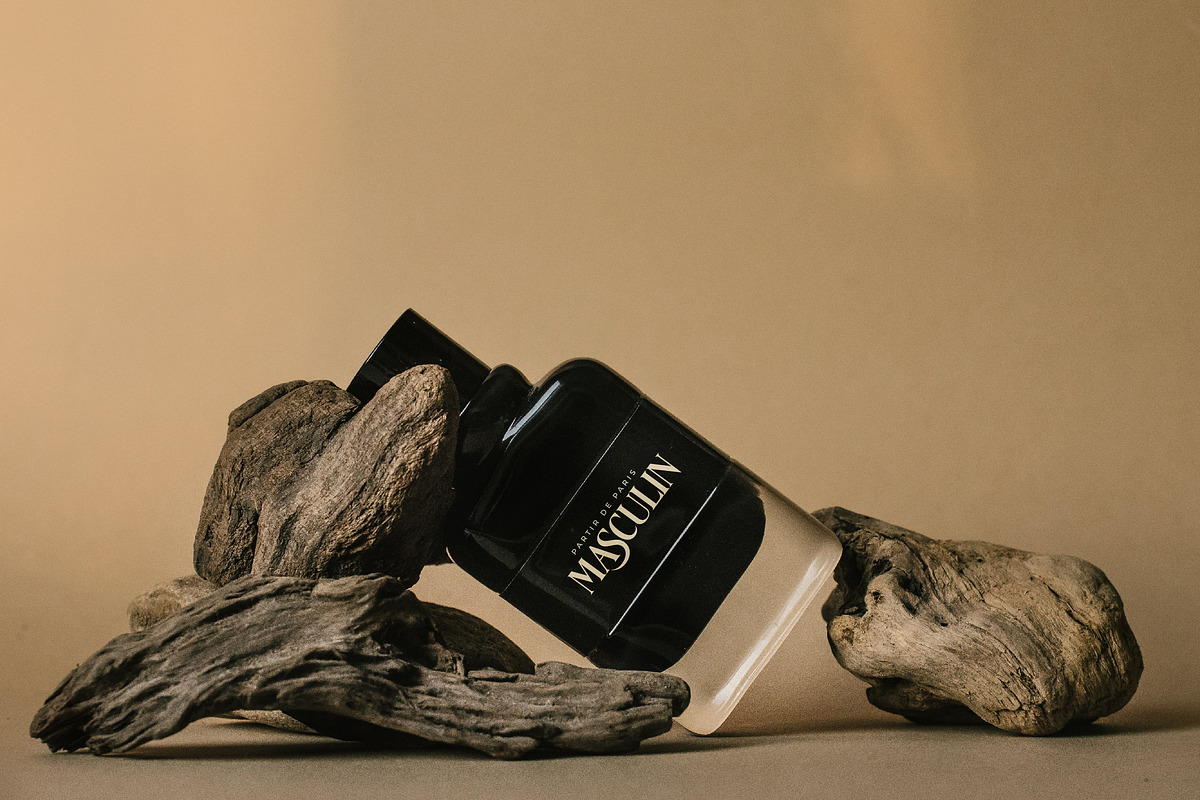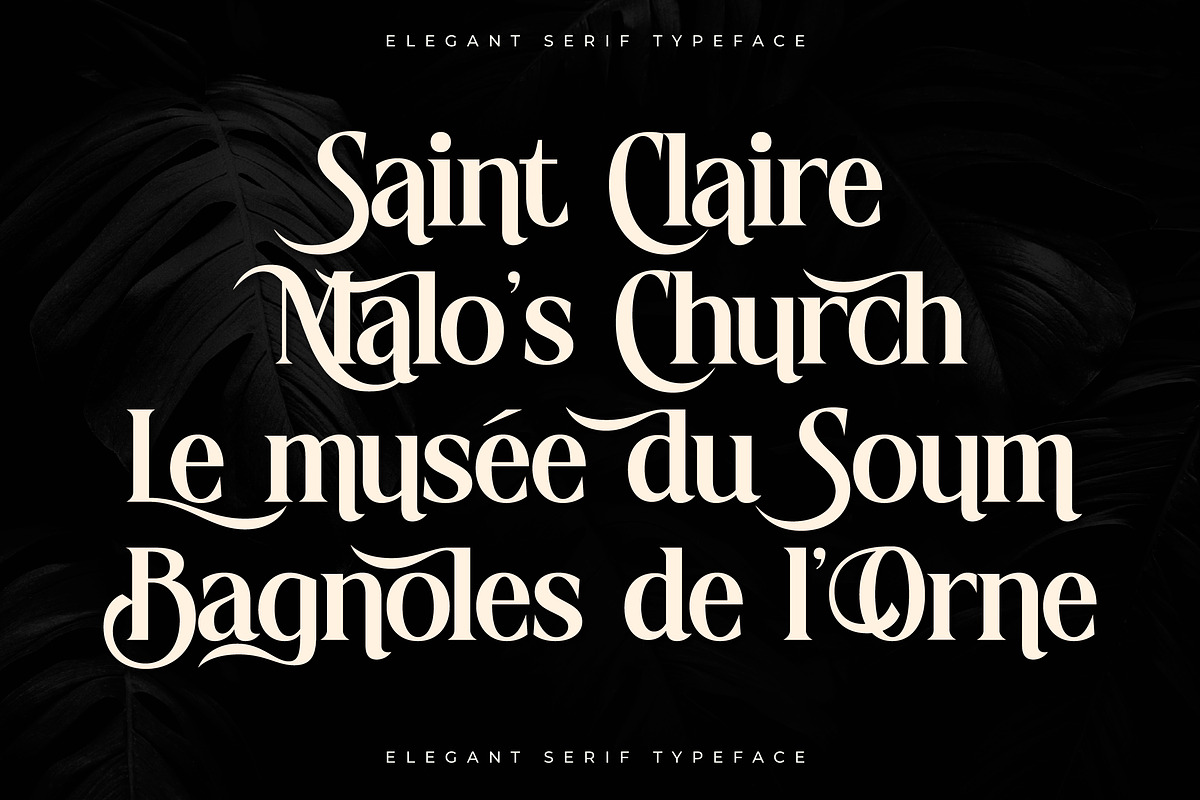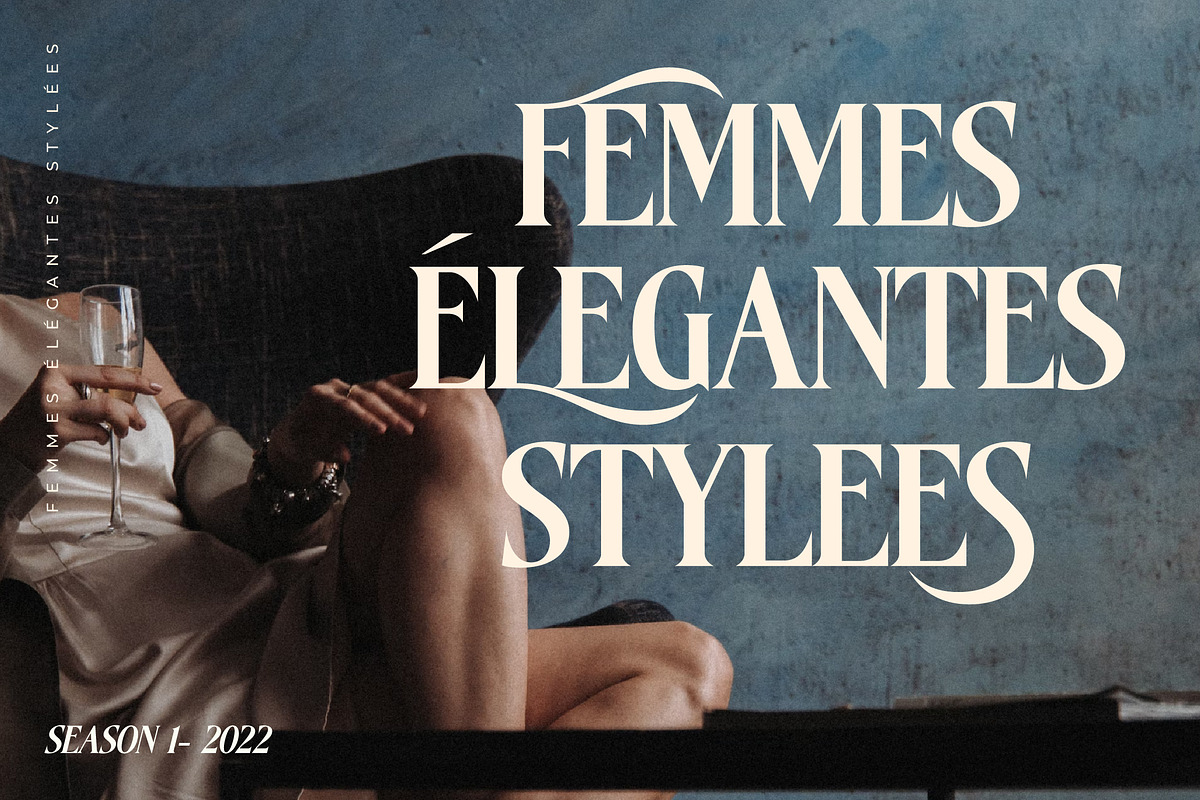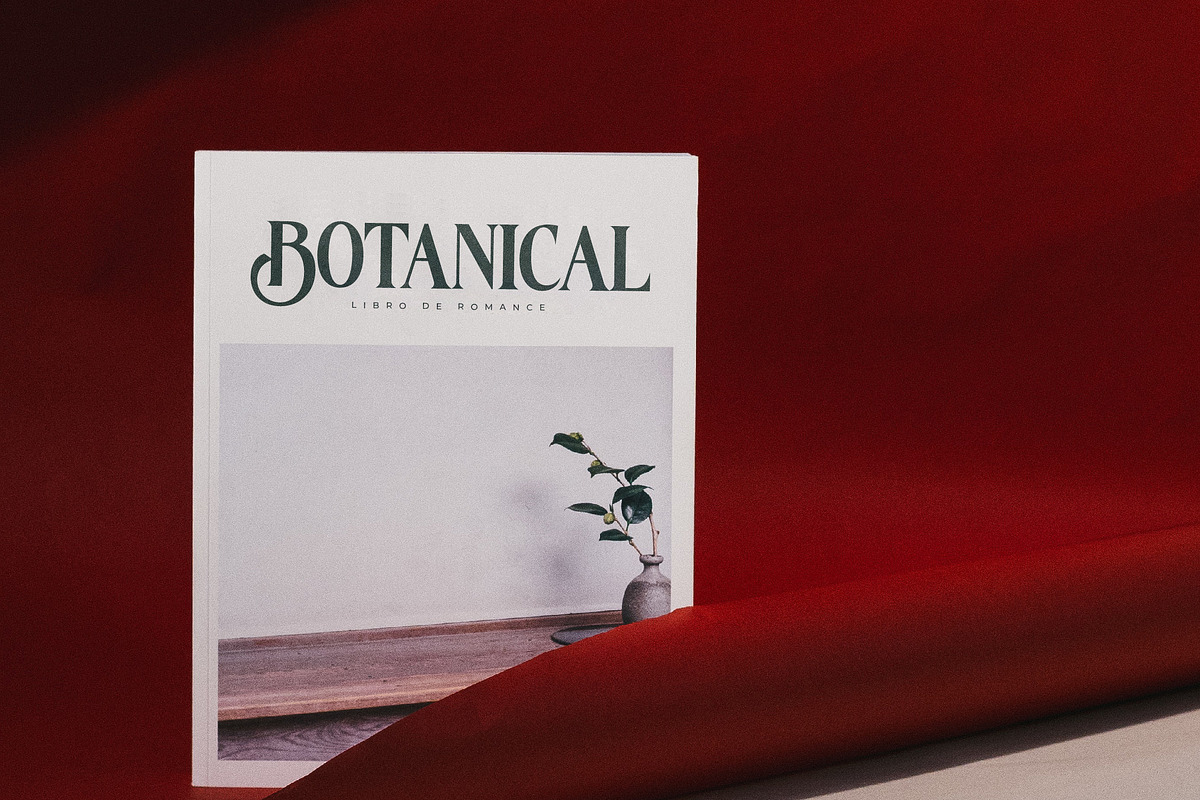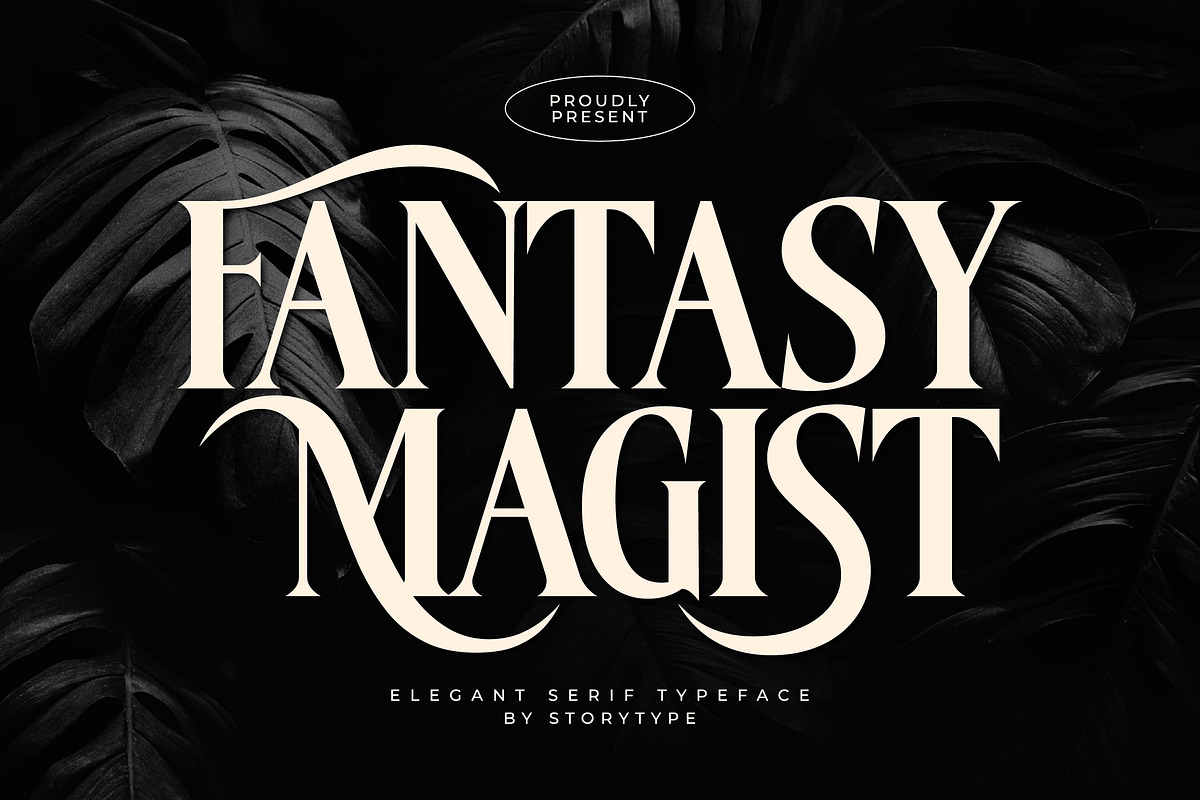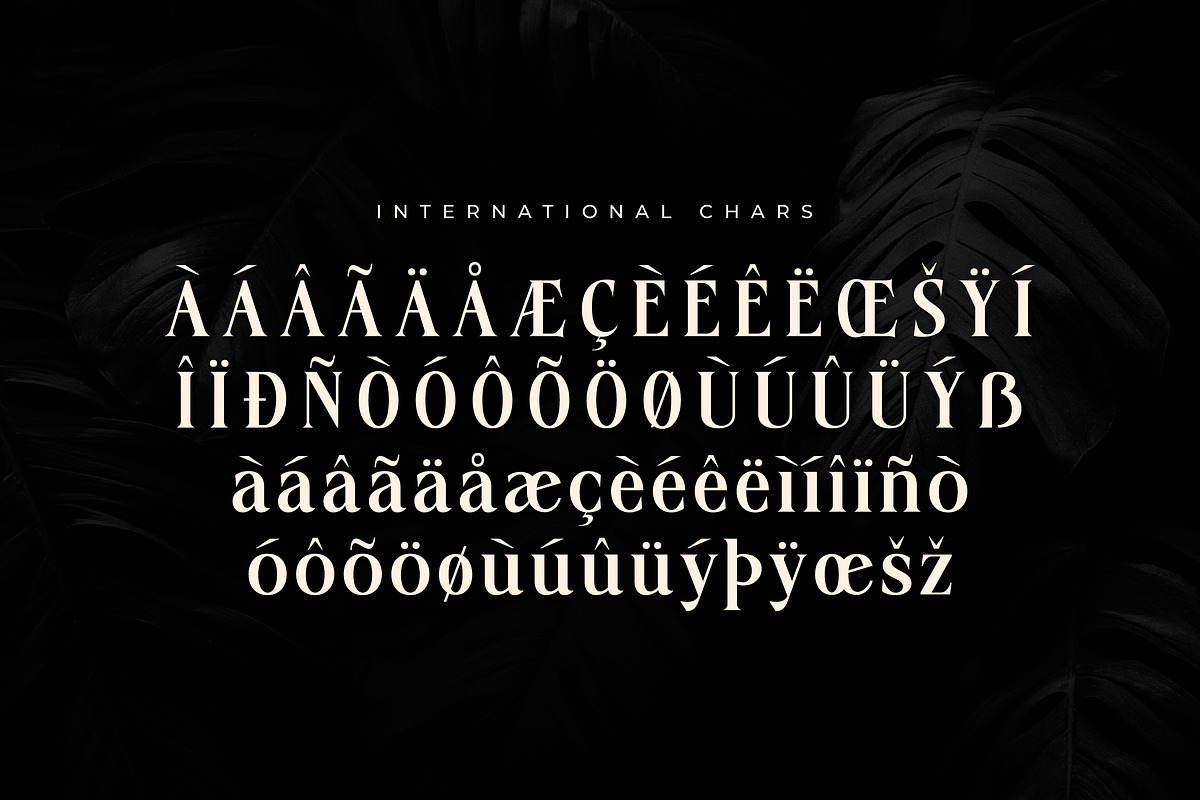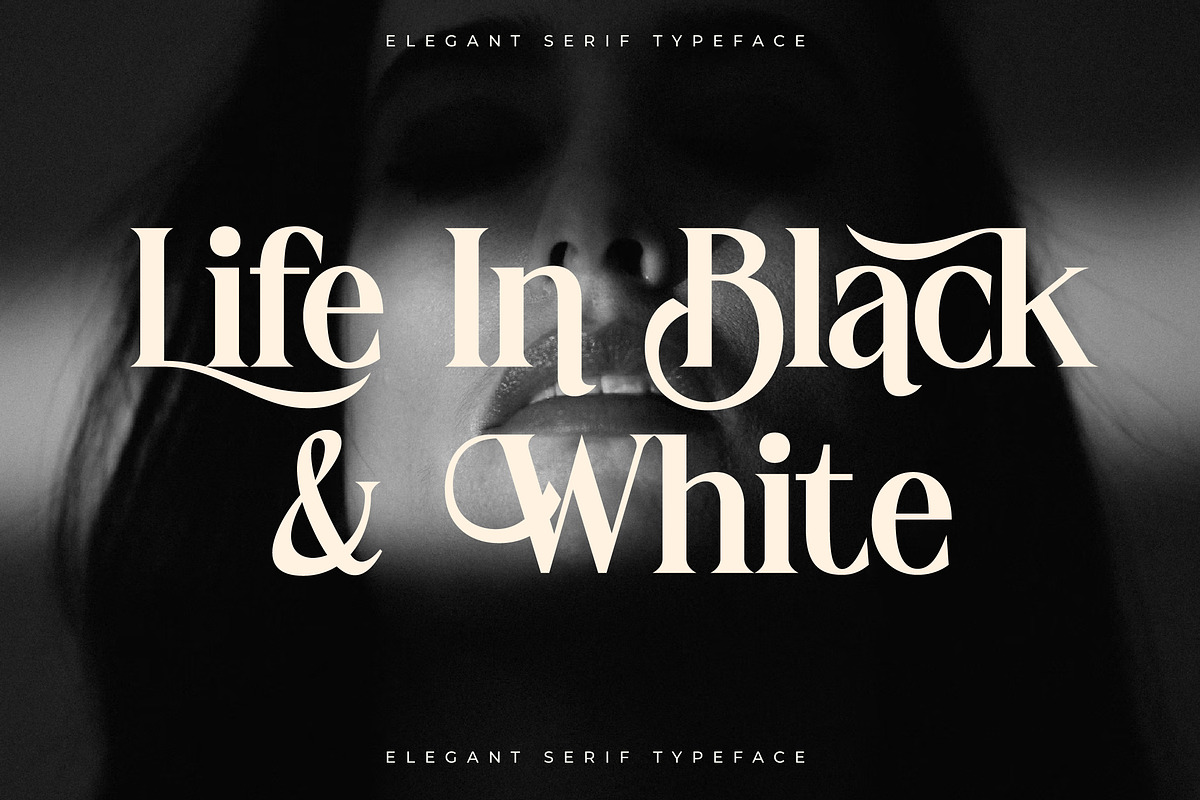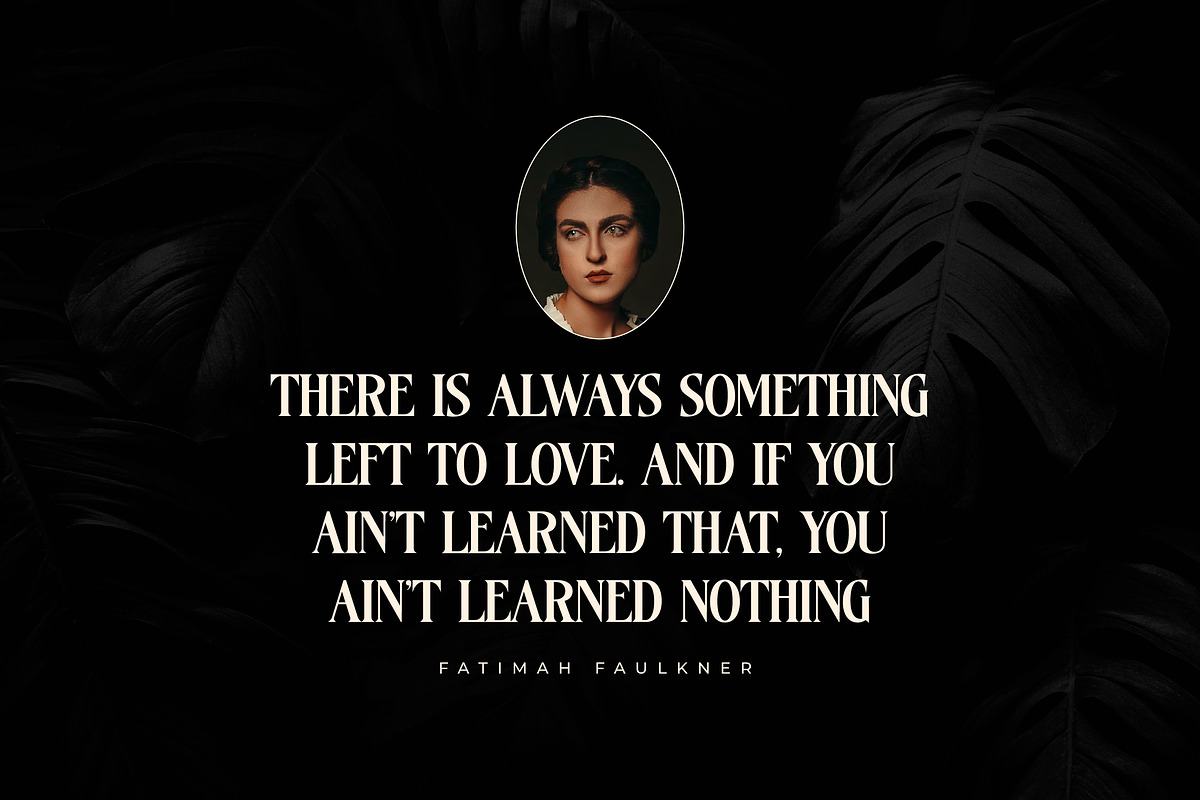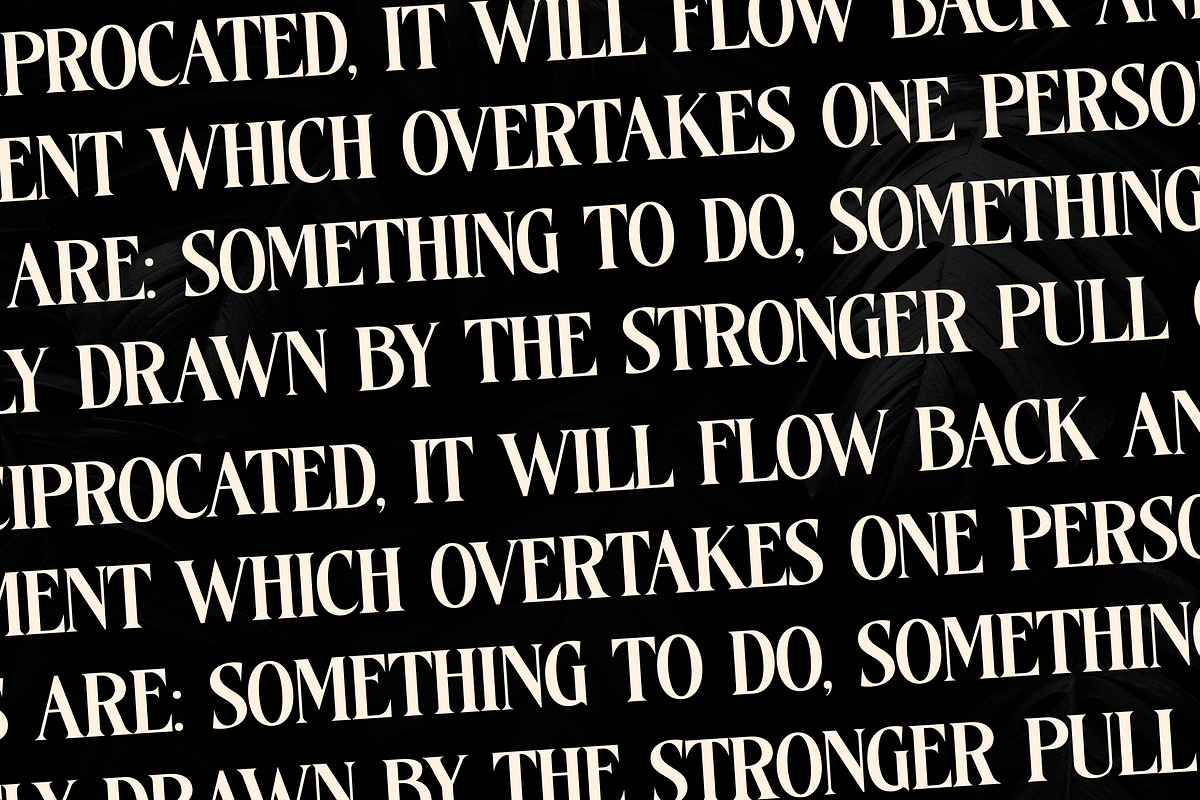
Fantasy Magist Elegant Serif Font
Proudly present FANTASY MAGIST Typeface , created by Storytype, A serif modern and classic typeface that has own unique style & modern look. This typeface is perfect for an elegant & luxury logo, book or movie title design, fashion brand, magazine, clothes, lettering, quotes, and so much more.